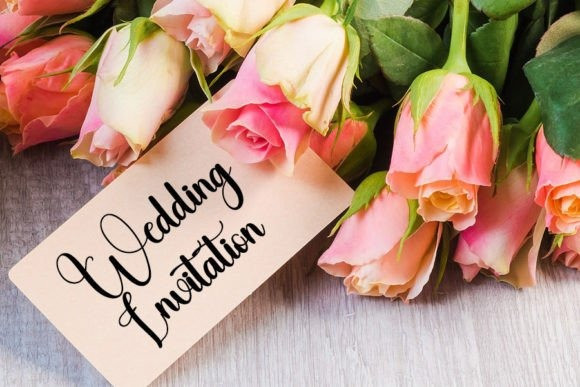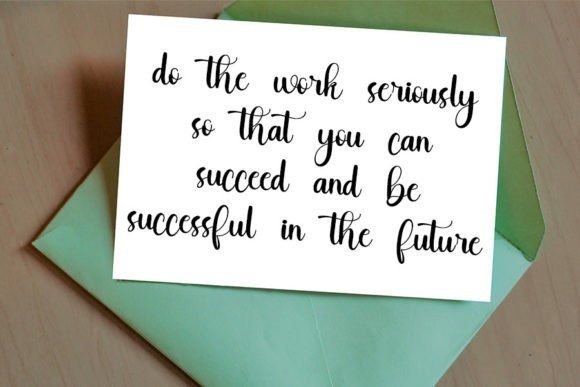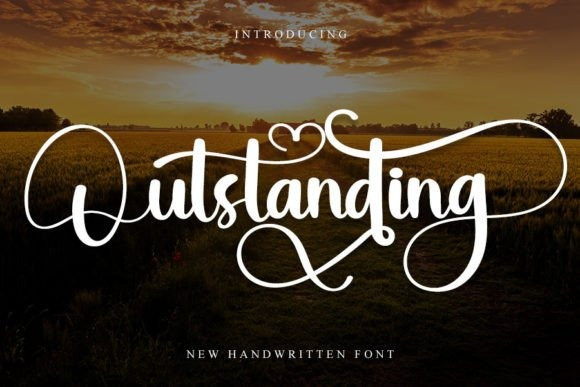
Outstanding Script Font
Outstanding Script Font is a gorgeous and elegant handwritten font. Use it for any design projects that require a charming appearance!